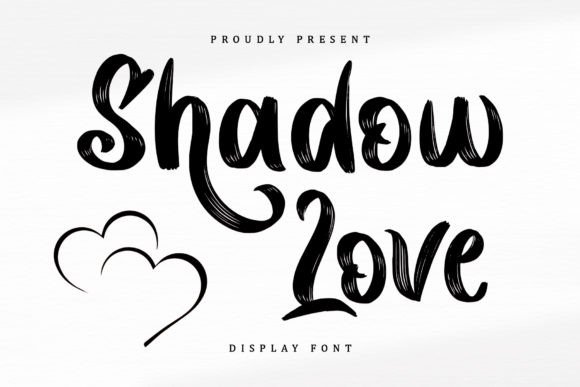
Journey into the realm of elegance and creativity with Shadow Love Font, a captivating script font that will transform your designs into works of art. Inspired by the beauty of handwritten brush strokes, this font exudes a charm and authenticity that will leave a lasting impression on your audience.
Picture this: you're crafting a wedding invitation, a heartfelt greeting card, or a motivational quote that needs to resonate with your readers. Shadow Love Font is your perfect companion, adding a touch of warmth and personality to every word. Each letter dances across the page, carrying your message with a grace and fluidity that will captivate the hearts of all who see it.
With Shadow Love Font, you're not just downloading a font; you're embracing a world of endless possibilities. Whether you're a seasoned designer or just starting your creative journey, this font will empower you to create designs that stand out from the crowd. Its versatility knows no bounds, extending from wedding welcome signs and invitations to branding materials and social media graphics.
The beauty of Shadow Love Font lies in its intricate details. The carefully crafted glyphs and ligatures add an extra layer of sophistication to your designs. With PUA encoding, you can effortlessly access these special characters and unleash your creativity. Let your imagination soar as you combine different elements to create unique and eye-catching designs.
But there's more to Shadow Love Font than just aesthetics. It's a font that speaks to your emotions, evoking a sense of joy, love, and inspiration. Whether you're creating a personal project or embarking on a commercial venture, this font will infuse your designs with a touch of magic that resonates with your audience.
So, step into the enchanting world of Shadow Love Font and unlock your creative potential. Let your designs blossom with elegance, authenticity, and heartfelt charm. Embrace the power of handwritten brushstrokes and captivate your audience with every word you write. Download Shadow Love Font today and let your creativity soar!